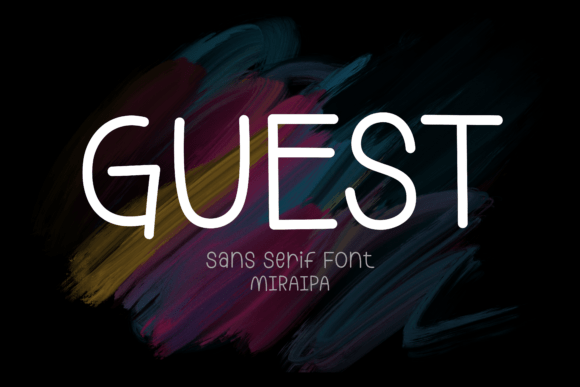
Meet the “Guest Font”, a playful and charming handwritten sans serif font that’s perfect for adding a cute touch to your projects. Whether you’re designing a t-shirt, a coffee mug, or a social media post, this font is sure to bring a smile to your audience’s face. With its full character set, including uppercase and lowercase letters, numerals, and punctuation, the Guest Font is a valuable addition to any designer’s toolkit.
As a designer, you’re always on the lookout for unique and versatile fonts to elevate your work. The Guest Font is a hidden gem that’s just waiting to be discovered, and with its friendly and quirky vibe, it’s sure to become your go-to font for adding a touch of whimsy to your designs.
Key Features of “Guest Font”
- Unique Characteristics: Guest Font features a unique, hand-drawn design with subtle texture and imperfections, giving it a distinctive and eye-catching appearance.
Guest Font Review
Overall, I have mixed feelings about Guest Font. On one hand, it has some great features that make it a solid choice for certain projects. ✨
- Unique aesthetic: Guest Font has a quirky, hand-drawn feel that can add a lot of character to designs.
- Wide language support: Guest Font supports a wide range of languages, making it a great choice for international projects.
- High-quality typography: The font has crisp lines and smooth curves, making it a pleasure to read.
However, there are some limitations to consider. ⚠️
- Not suitable for high-contrast designs: Guest Font’s design can get lost in high-contrast backgrounds, making it difficult to read.
- Limited bold and italic options: While the font has some great bold and italic variations, they’re not as extensive as some other fonts.
- May not be suitable for corporate or formal designs: Guest Font’s quirky aesthetic may not be suitable for formal or corporate designs.
Overall, I think Guest Font is a solid choice for projects that require a unique, hand-drawn feel. However, it may not be the best choice for every project. With some careful consideration of its limitations, Guest Font can be a great addition to your design toolkit.
Guest Font is ideal for creating invitations, posters, and social media graphics. It’s also a great choice for designing wedding stationery, menus, and other print materials. With its unique and elegant style, Guest Font is sure to make your designs stand out.